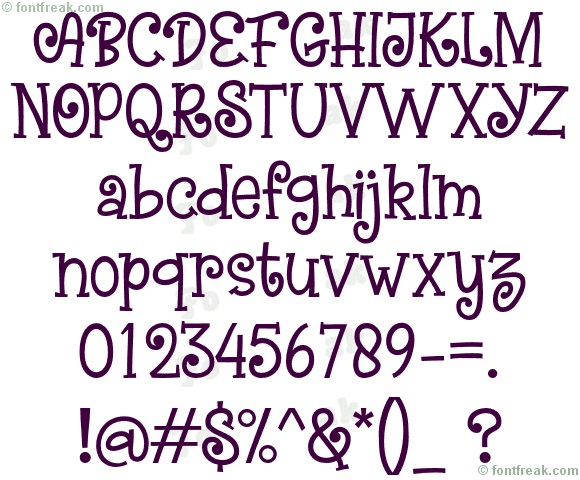
BeautifulMaples
BeautifulMaples is a distinctive display font created by Situjuh Nazara, characterized by its playful and whimsical style. This font features a unique handwritten aesthetic, making it perfect for designs that require a personal touch. Its stroke weight is moderately thick with a balanced contrast that enhances readability while maintaining a charming visual appeal. The spacing is generous, allowing each letter to breathe while also creating a cohesive flow when words are strung together. Decorative elements, such as rounded edges and quirky letterforms, give BeautifulMaples a friendly and inviting character.
This font shines in various creative applications, making it a versatile choice for graphic designers and small business owners alike. It is particularly suitable for crafting wedding invitations that evoke romance and warmth, designing eye-catching movie posters that attract attention, creating inviting restaurant menus, or even enhancing branding materials for boutique shops. Content creators will find it an ideal choice for social media graphics, ensuring their posts stand out in crowded feeds.
The target audience for BeautifulMaples includes graphic designers looking for a unique typeface to elevate their projects, small business owners seeking to establish an inviting brand identity, and content creators aiming to infuse personality into their visual content.
What sets BeautifulMaples apart is its ability to blend fun and elegance, making it a standout choice in the world of display fonts. Its charming characteristics and flexibility in application make it an essential addition to any designer's toolkit. With the BeautifulMaples font free download, you can easily incorporate this delightful typeface into your projects, ensuring that your designs leave a lasting impression.